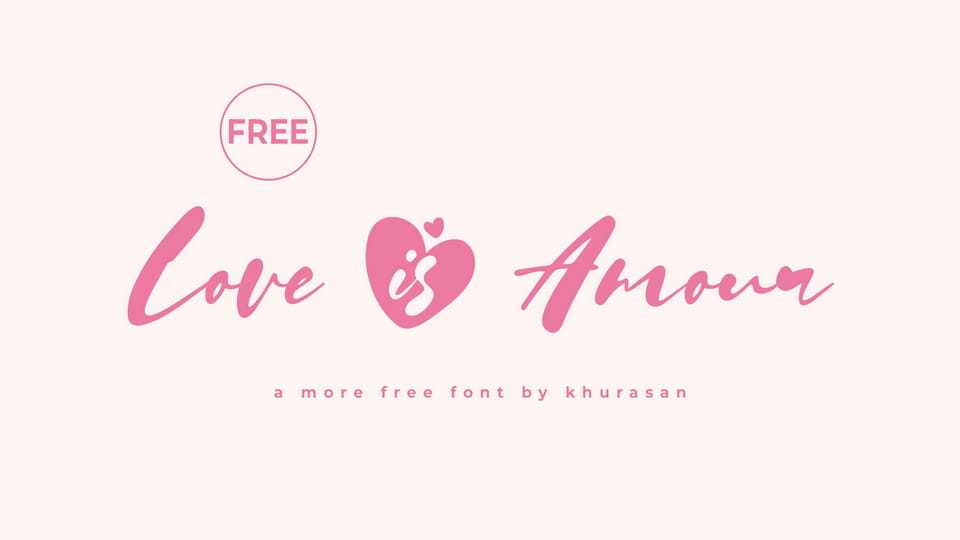
Download Love is Amour font, a romantic script display typeface designed to express softness and emotion. Its flowing handwritten style and heart-inspired details create a warm and affectionate mood, making it perfect for love-themed and delicate designs.